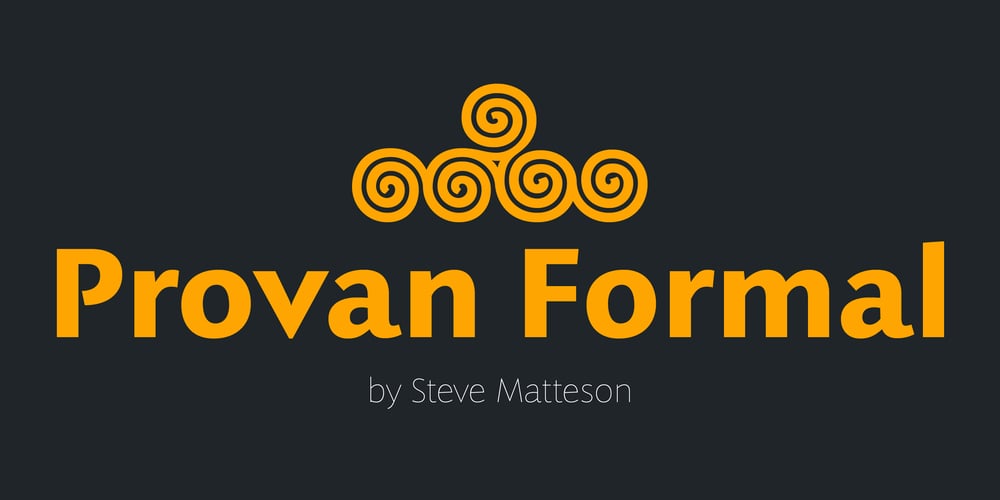
Provan Formal Font Family was designed by Steve Matteson and published by Matteson Typographics. Provan Formal contains 16 styles and family package options. Provan is a contemporary humanist sans serif with roots in calligraphy and incised letters. These timeless inspirations result in a typeface family that transcends fashion and adds a strong sense of authenticity to brands. The regular version of Provan has angled stem endings and oblique stress in curved shapes which add to its friendly and legible warmth. Provan Formal straightens these stroke endings to bring a more refined alignment of letters. The typefaces include swash capitals, small capitals, old style figures and special Celtic capital variants. The Inline version of Provan is useful for drop capitals, book covers and posters. Provan bucks the ubiquitous neutrality of geometric typefaces and exudes a sense of humanity, craftsmanship and warmth.